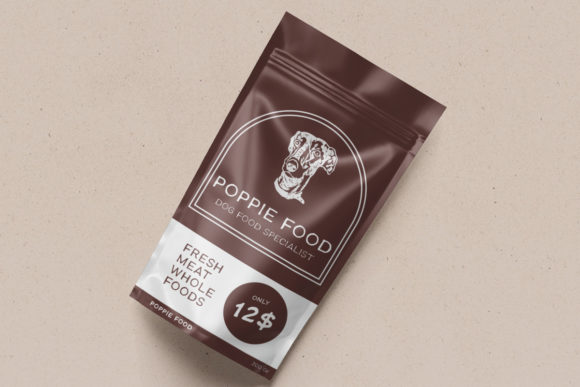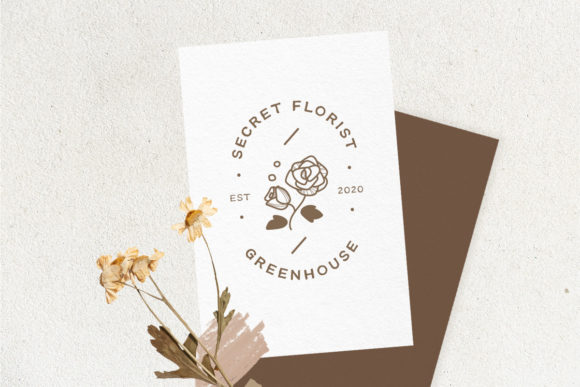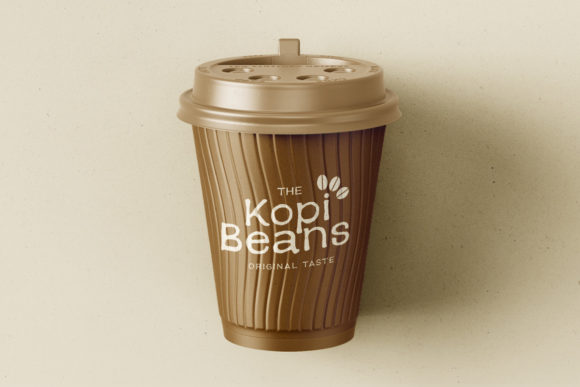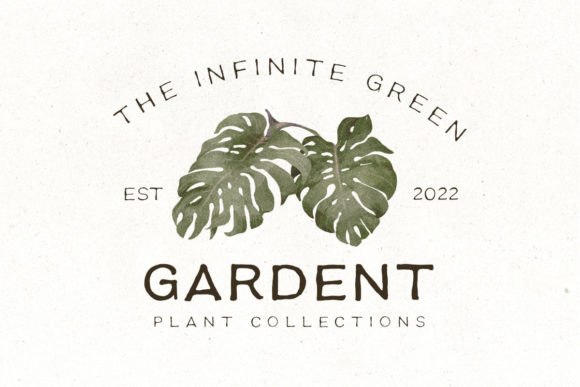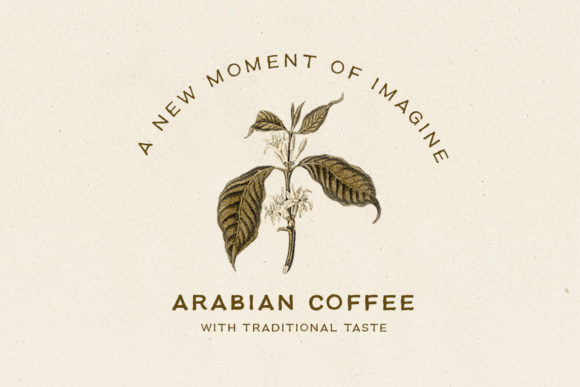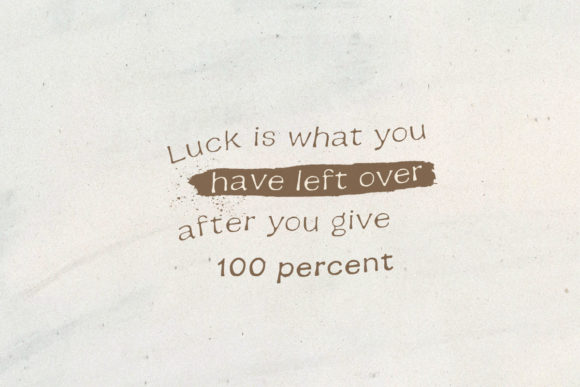
Discover the Elegance of Earth Tone Font: A Modern Sans Serif for Your Designs
Are you on the hunt for a font that exudes elegance, modernity, and a touch of minimalism? Look no further than the Earth Tone Font. This stunning sans serif font is perfect for designers and crafters looking to elevate their visual creations with a clean and sophisticated vibe.
What is Earth Tone Font?
Earth Tone is a beautifully crafted sans serif font that boasts a minimalist and clean aesthetic. Its elegant design makes it an ideal choice for a wide range of applications, from book covers and magazines to social media posts, invitations, and more.
Key Features of Earth Tone Font
- Modern Sans Serif Design: Earth Tone Font features a sleek and contemporary sans serif design that is sure to turn heads.
- Minimalist and Clean Vibe: The font’s clean lines and minimalist aesthetic make it perfect for designs that require a touch of sophistication.
- Highly Versatile: Earth Tone Font can be used for a variety of applications, including book covers, magazines, social media posts, invitations, and more.
- Elegant and Sophisticated: The font’s elegant design makes it perfect for designers and crafters looking to add a touch of luxury to their creations.
Earth Tone Font is a perfect choice for designers and crafters who want to create visually stunning designs that exude elegance and sophistication. Whether you’re working on a book cover, magazine, or social media post, this font is sure to elevate your design to the next level.
Use Cases for Earth Tone Font
- Book Covers: Earth Tone Font is perfect for book covers that require a touch of elegance and sophistication.
- Magazines: The font’s clean and minimalist design makes it ideal for magazine titles, headings, and body text.
- Social Media Posts: Earth Tone Font can be used to create visually stunning social media posts that are sure to grab attention.
- Invitations: The font’s elegant design makes it perfect for invitations, including wedding invitations, birthday invitations, and more.
Tips for Using Earth Tone Font
- Pair with Other Fonts: Earth Tone Font can be paired with other fonts to create a unique and visually stunning design.
- Experiment with Colors: The font’s clean design makes it perfect for experimenting with different colors and color combinations.
- Use for Headings and Body Text: Earth Tone Font can be used for both headings and body text, making it a versatile choice for designers and crafters.
Earth Tone Font is a stunning sans serif font that is perfect for designers and crafters looking to add a touch of elegance and sophistication to their designs. Its modern and minimalist design makes it highly versatile and suitable for a wide range of applications. Whether you’re working on a book cover, magazine, social media post, or invitation, Earth Tone Font is sure to elevate your design to the next level.